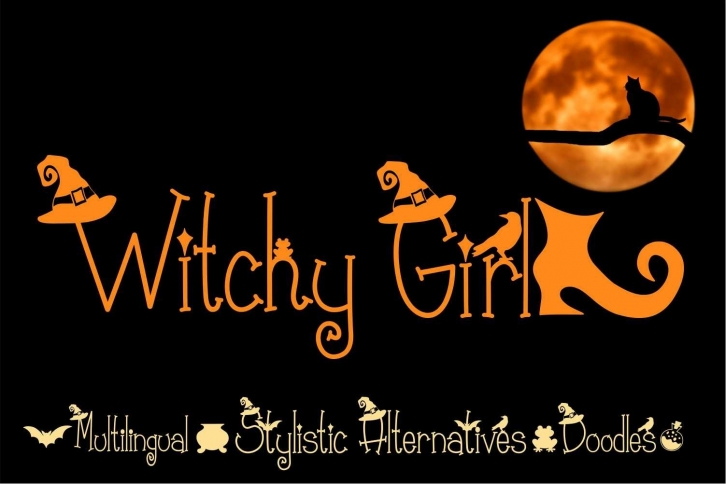
Witchy Girl is a trendy and unique font with an authentic style. It was designed by Miss Marys Embroidery and it's a great choice for creative people who need such a font. It was released on September 29, 2021 and the file size is 11.55 MB. Witchy Girl will add an organic vibe to any design idea!